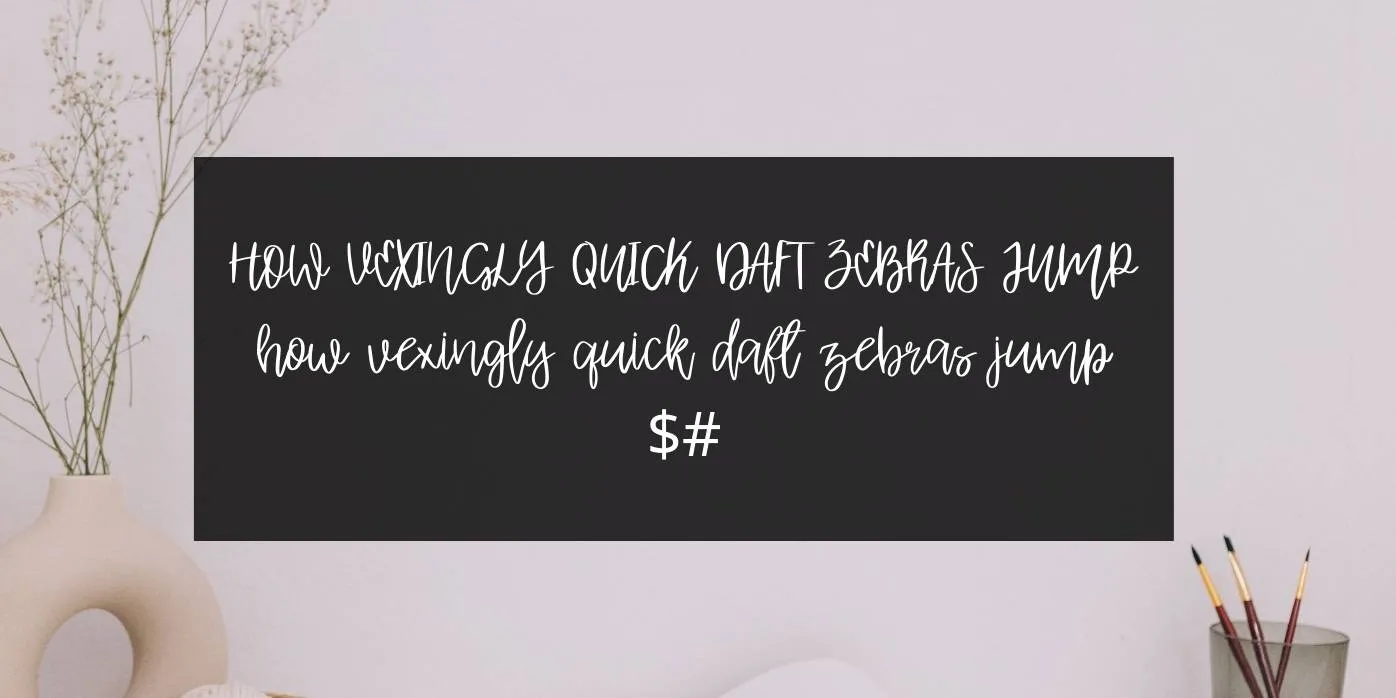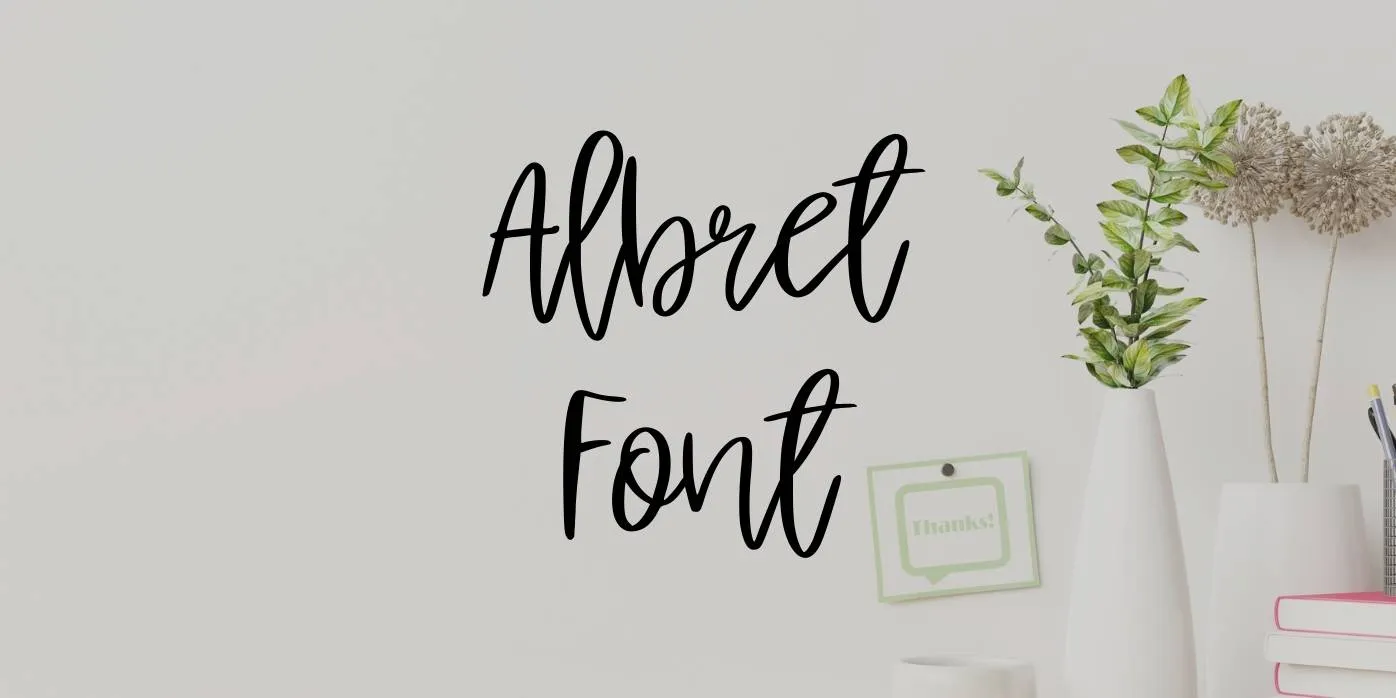
Albret Font
Today, we are consulting on an outstanding and marvelous typeface that is famous with the name Albret Font. The main designer of this typeface was Mr. Typeman. It belongs to the calligraphy typeface.
Albret Font is an ideal typeface for making official documents and all other purposes where a touch of formality is required. The hairlines in this typeface are thin and delicate, which makes it perfect for use in small sizes. It is well specified for the CSS. Its alternative seventies font is best for many designs.
This typeface is available in three different styles, namely Regular, Italic, and Bold. Each style has its own unique set of characters. This gorgeous Font also includes support for multiple languages. That is why it is famous all over the world.